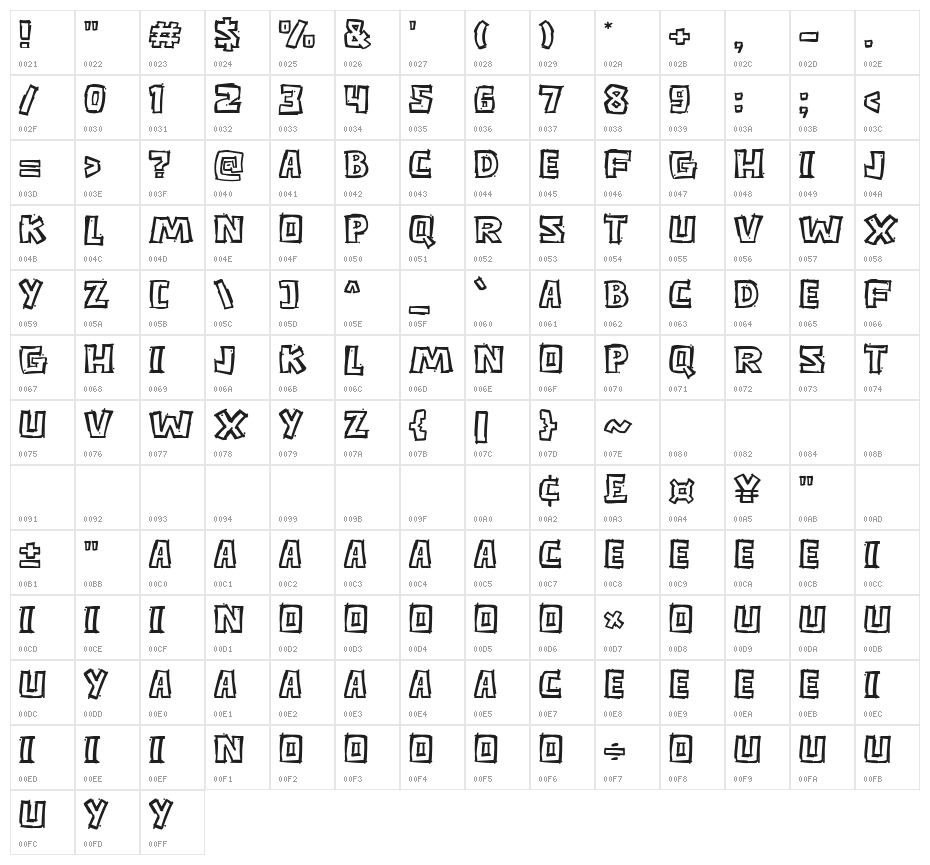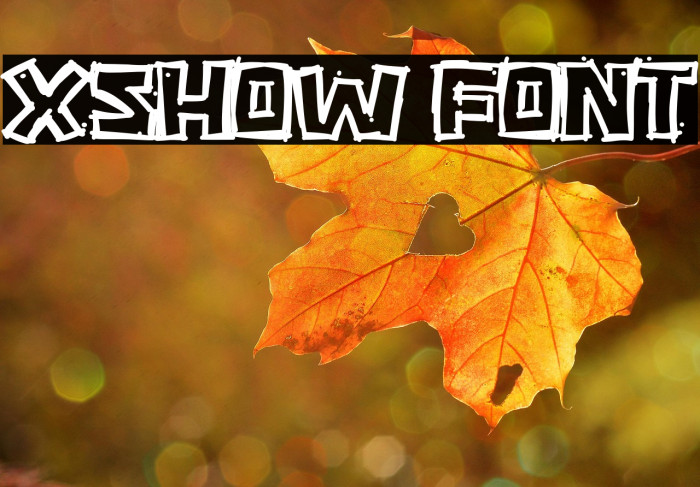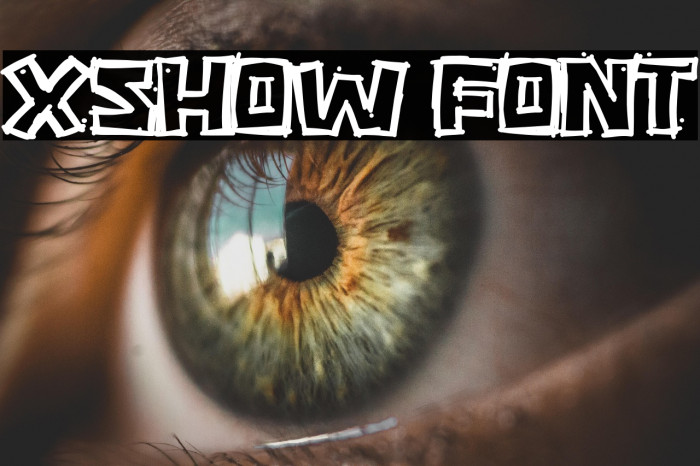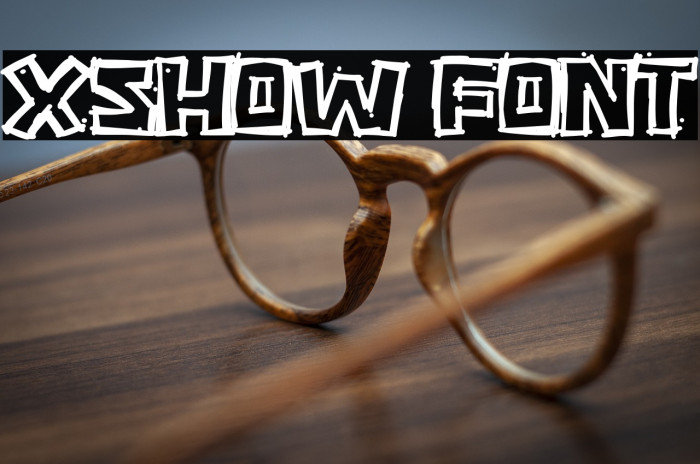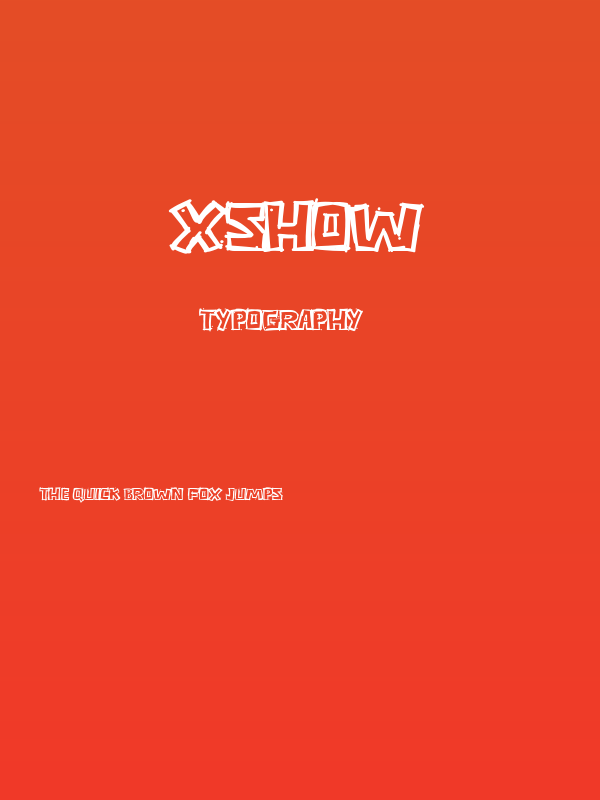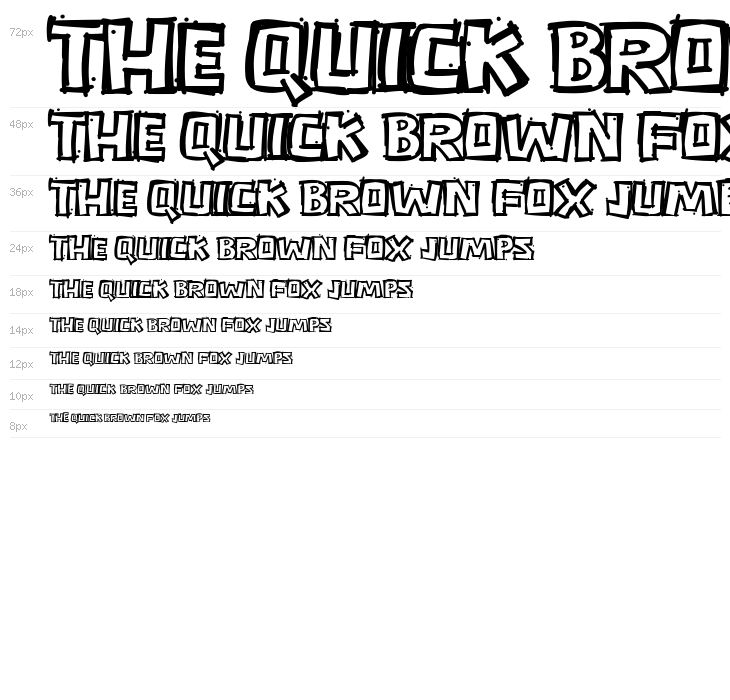
Xshow Font
Xshow Description
This font features a bold, graffiti-inspired style with a playful and edgy appearance. The characters are outlined with a thick, uneven stroke that gives them a hand-drawn look, reminiscent of street art. The letters are slightly irregular in shape, adding to the dynamic and energetic feel. The numbers and special characters maintain the same aesthetic, ensuring consistency throughout. This font is perfect for projects that require a youthful, rebellious vibe, such as urban-themed designs or music festival posters.
| Overall Style | Modern, Urban, Edgy |
| Proposed Projects | Ideal for street art designs, music festival posters, urban-themed branding, and edgy merchandise. |